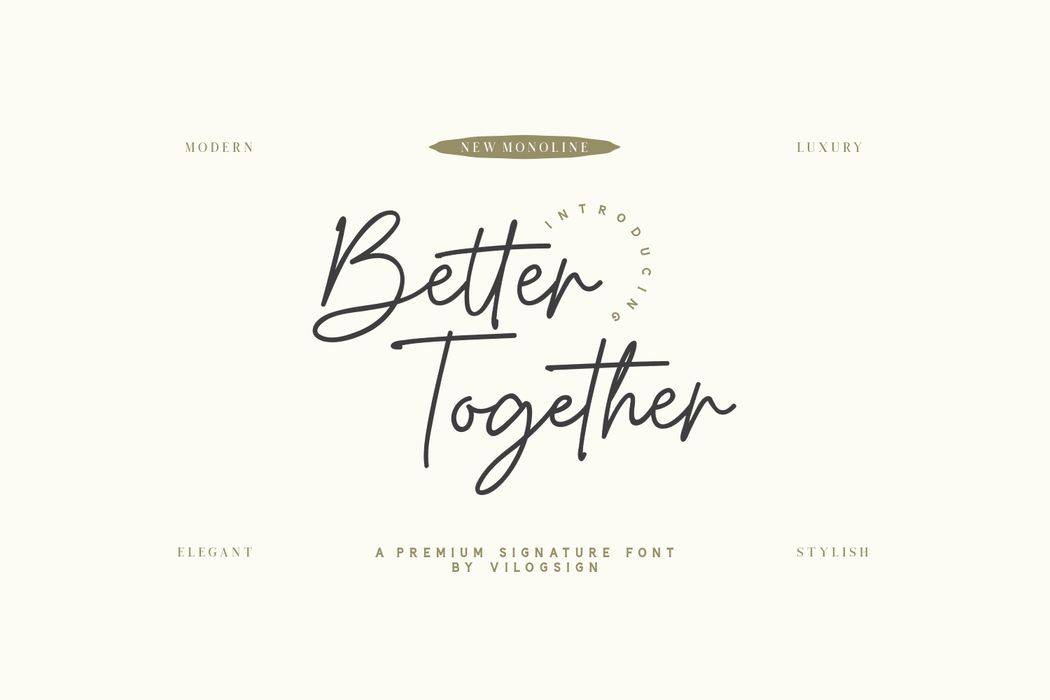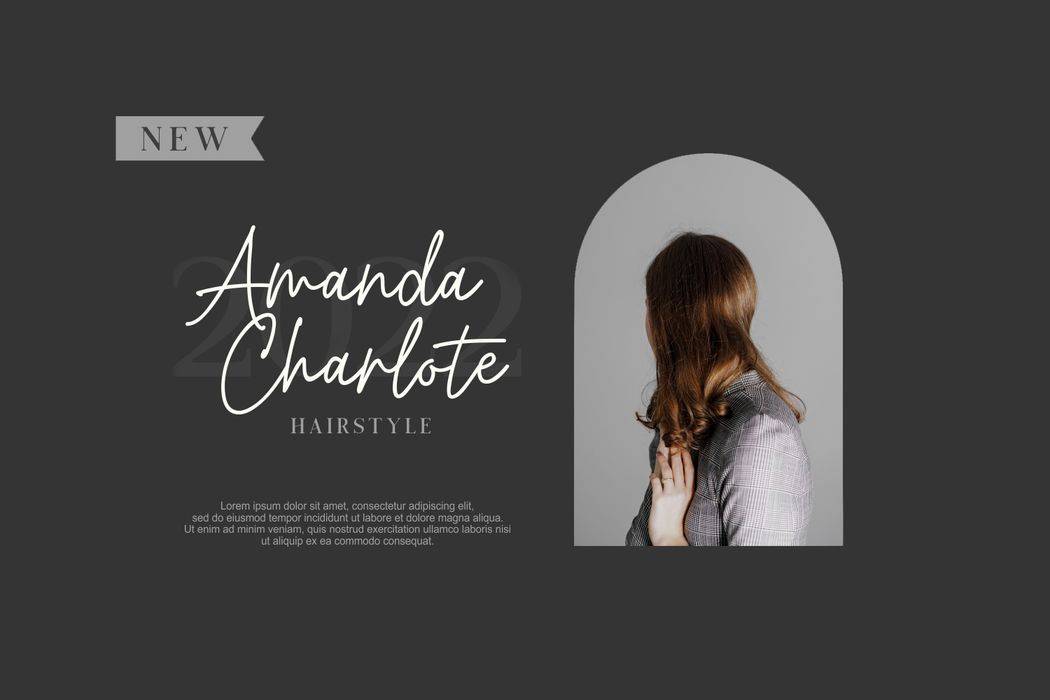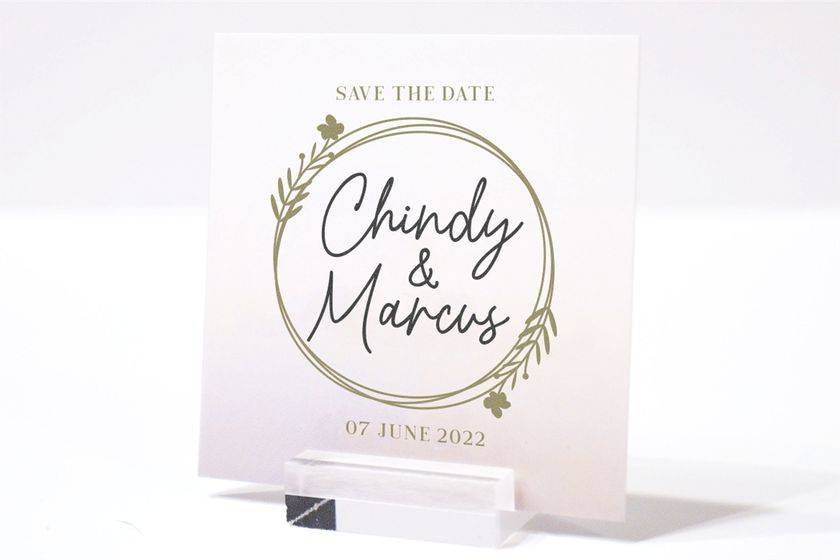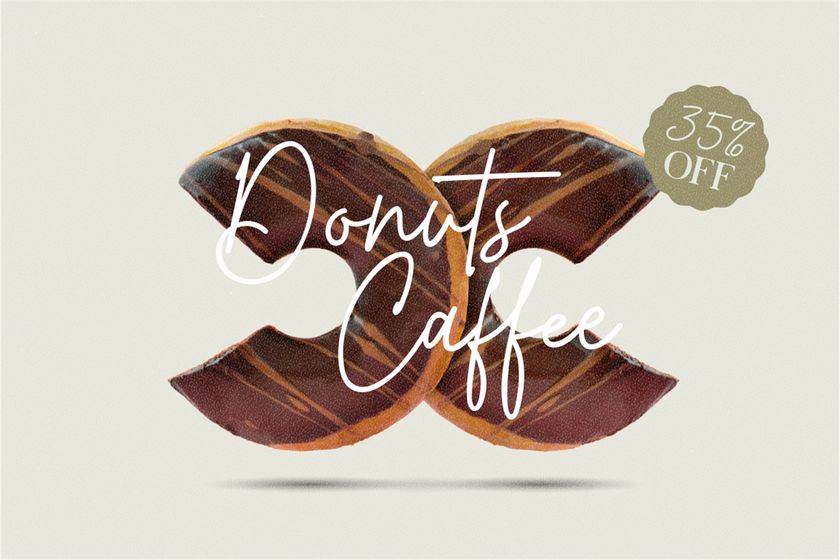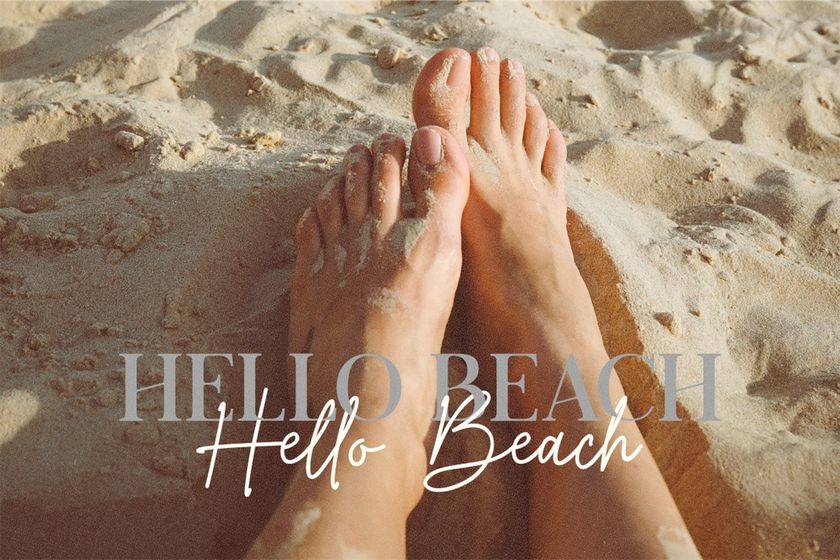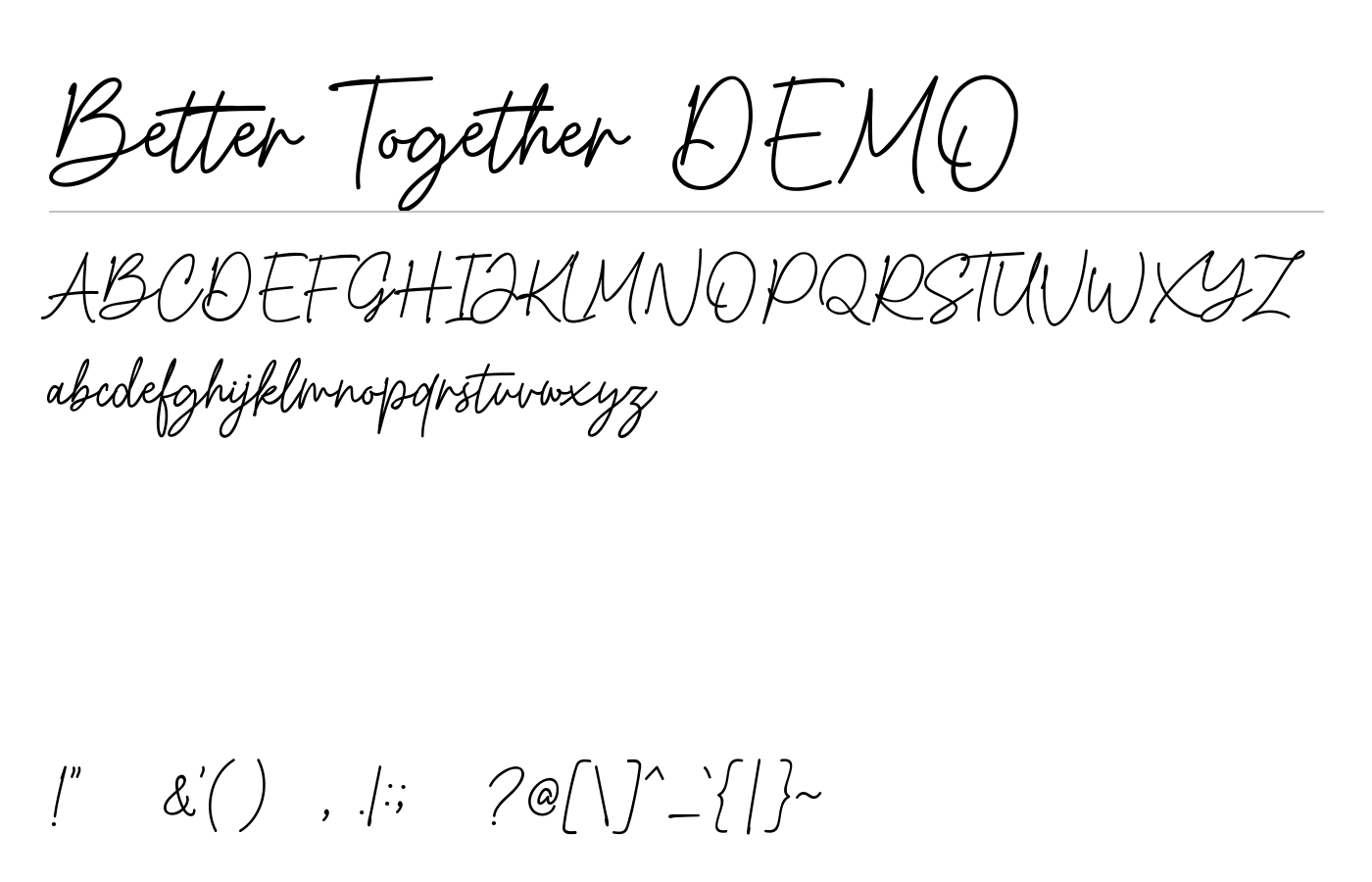
Better Together is a delicate and elegant handwritten script font that combines a casual, natural flow with refined thin strokes. Its tall, narrow letterforms and consistent line weight give it a modern yet approachable feel, making it perfect for invitations, branding, and creative projects that require a personal, stylish touch. This font works especially well in contexts where a light, airy, and sophisticated handwritten look is desired.
Better Together Font
About Better Together Font
| Font family | Better Together Font |
| Designer | Vilogsign |